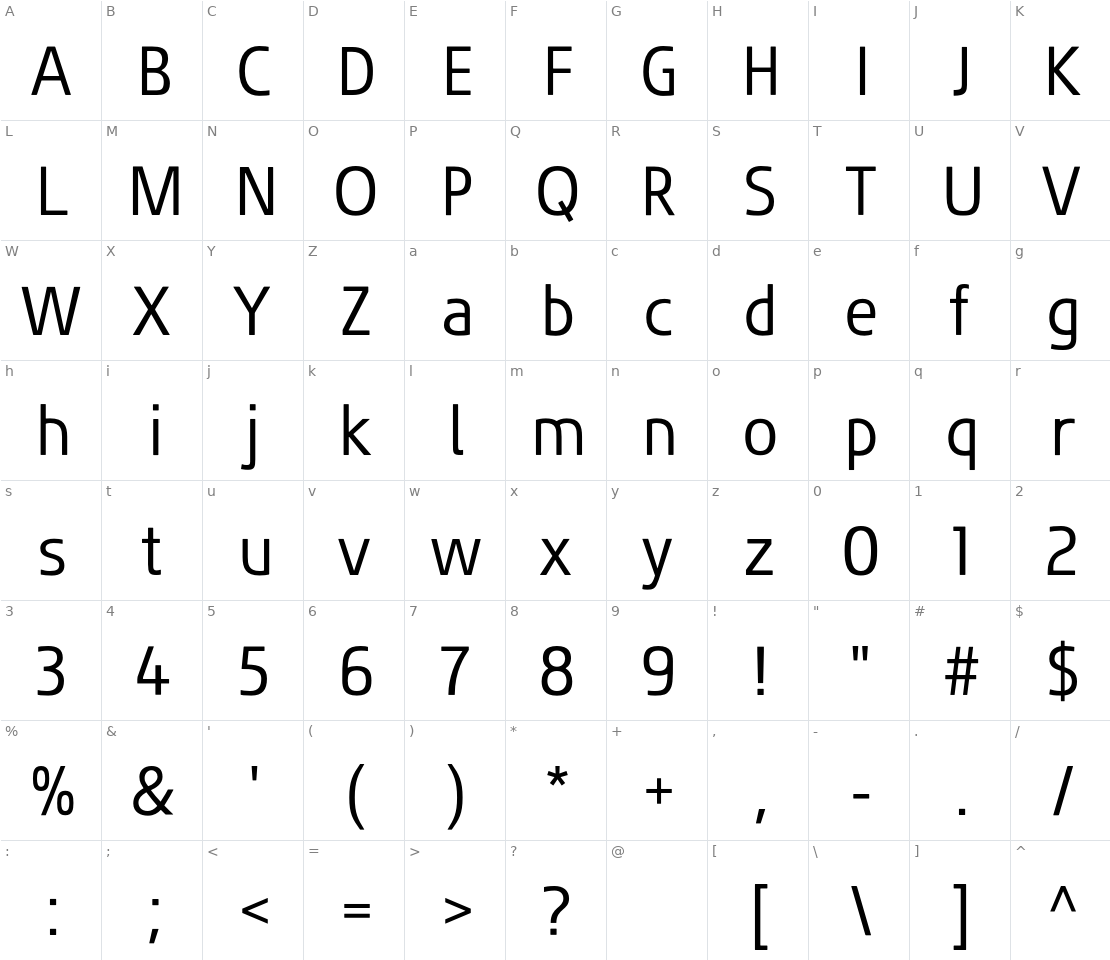
Fluent Sans
by a.i
Fluent Sans is a light, condensed humanist sans-serif from a.i that balances corporate restraint with a subtle warmth in its letterforms. The clean proportions and open counters keep it highly readable at small sizes, making it a solid choice for UI work, body text, and corporate communications. There's an understated elegance here that comes from careful spacing and gentle curves rather than ornamentation.